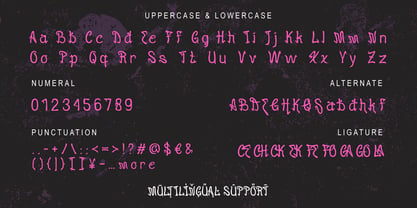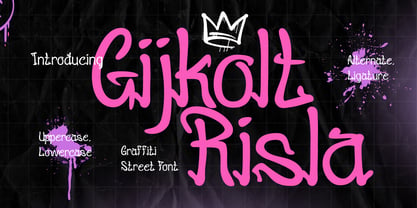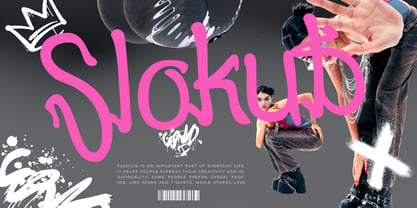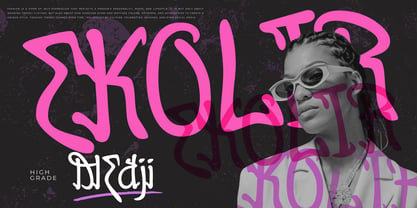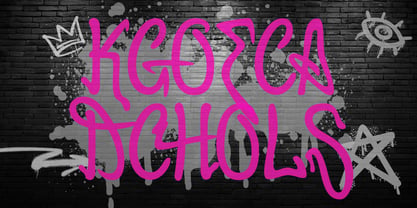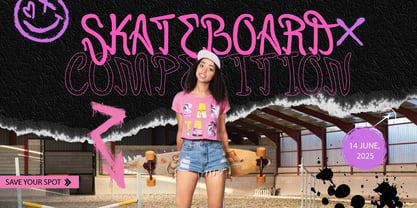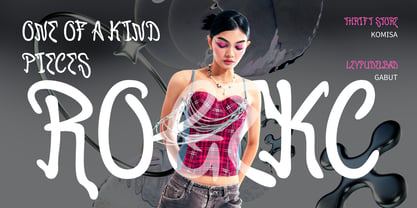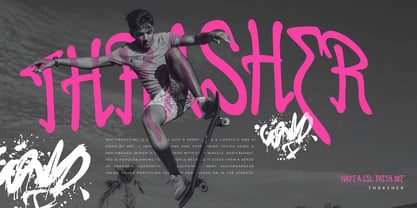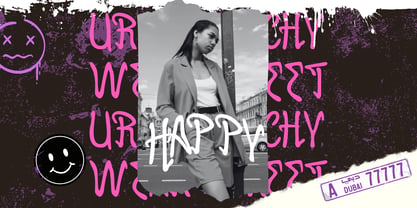
Gijkolt Risla
Gijkolt Risla is a raw and expressive street graffiti font that bursts with urban attitude. Crafted with irregular strokes and freestyle outlines, this font captures the authentic energy of street tags and wall art seen in the heart of big cities. Its wild style and rebellious edge make it the perfect choice for projects that need to stand out and make a statement.
From hip-hop album covers to urban fashion branding, skateboarding graphics, and underground event posters, Gijkolt Risla gives your designs a loud and daring character. Despite its chaotic charm, the font remains readable, blending artistic flair with real-world usability. Whether you're designing for street culture or simply want to break design norms, this typeface adds a bold, gritty personality to your work.